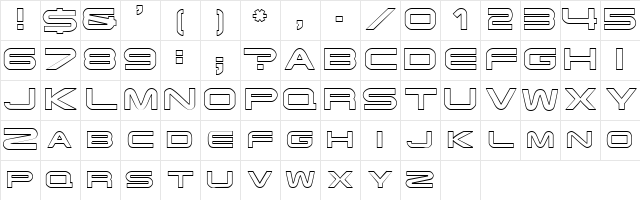
EndzoneOutline Black
Design Context for EndzoneOutline
EndzoneOutline is built around its visual character rather than neutral utility - its distinctive forms are designed to make an impression at display sizes.
Font Pairing: Pair with a clean neutral sans-serif for body copy to let EndzoneOutline's character lead without overwhelming the composition.
Pro Tip: Use EndzoneOutline exclusively at display sizes - it was designed to be seen, not read at length. Let a neutral companion handle body copy.